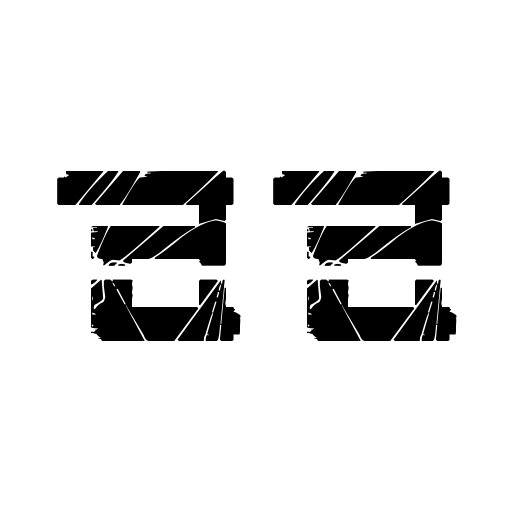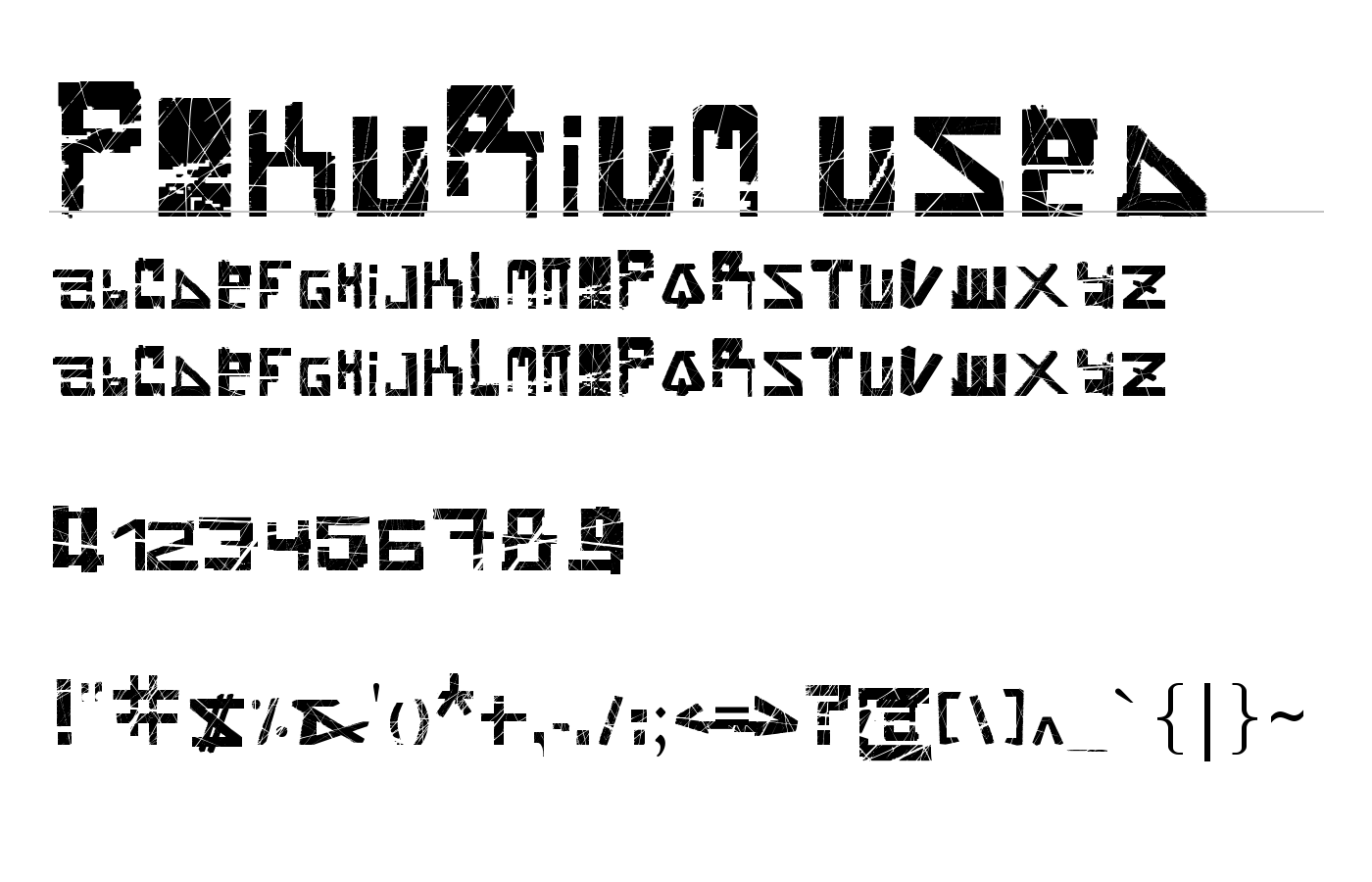
Brain Damage Font is a bold, distressed sans-serif with a rugged, fragmented texture that gives it a chaotic, edgy vibe. Its blocky letterforms and high contrast between solid fills and irregular gaps make it ideal for striking headlines or graphic designs that demand a raw, rebellious look. This font works especially well in posters, logos, and branding that want to convey energy, intensity, or a grungy urban style.
Brain Damage Font
About Brain Damage Font